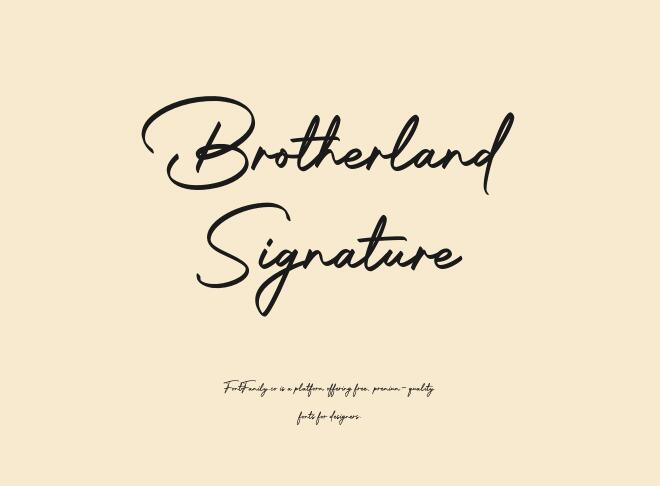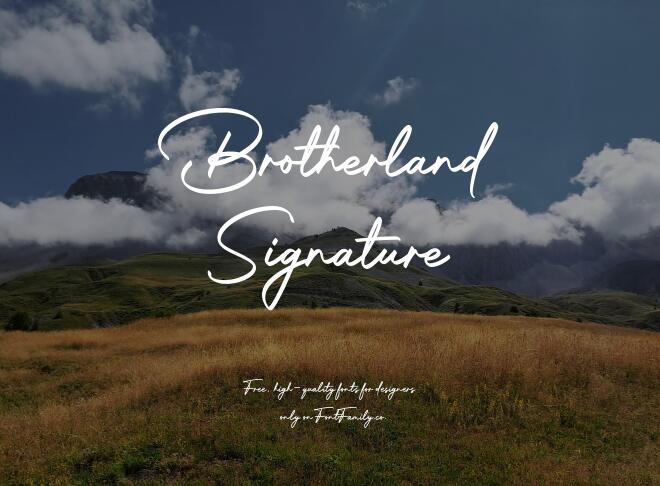
Brotherland Signature Font
Brotherland Signature Font is an elegant, script, and handwritten font that exudes sophistication and style. It is an excellent choice for designers looking to add a touch of elegance to their projects. The font is similar in style to other popular script fonts but stands out with its unique handwritten flair. With its fluid and organic strokes, Brotherland Signature Font is perfectly suited for logos, branding, wedding invitations, stationery design, and more. Its unique style makes it a great choice for those seeking to make a bold statement with their design. The font's versatility and distinctive style make it a must-have addition to any designer's font library.